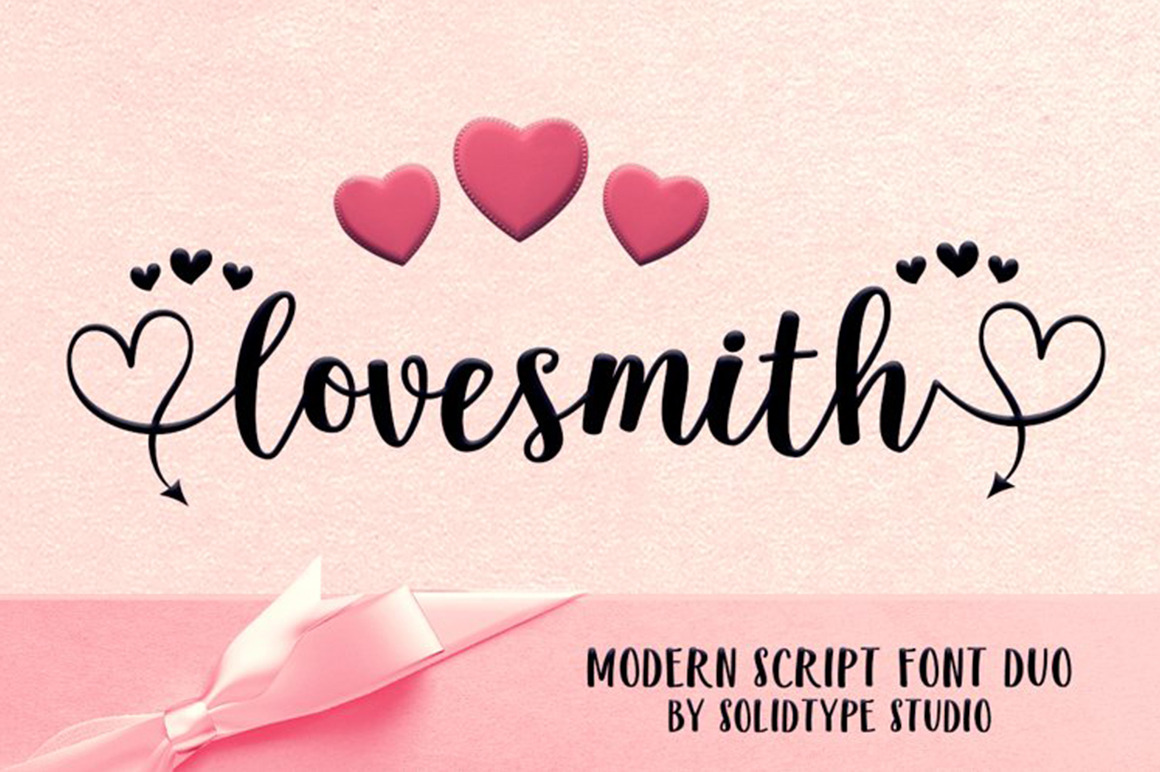
Lovesmith Font Duo
Lovesmith is a modern script font duo, dynamic and pretty with swashes. Can used for various purposes. such as the title, signature, logo, wedding invitations, letterhead, signage, labels, newsletters, posters, badges, etc. Lovesmith features Open type feature, including initial and terminal letters,ligatures and International support for most Western Languages is included.
- Lovesmith Script
- Lovesmith Sans
- Lovesmith Style
- Lovesmith Sans Bold